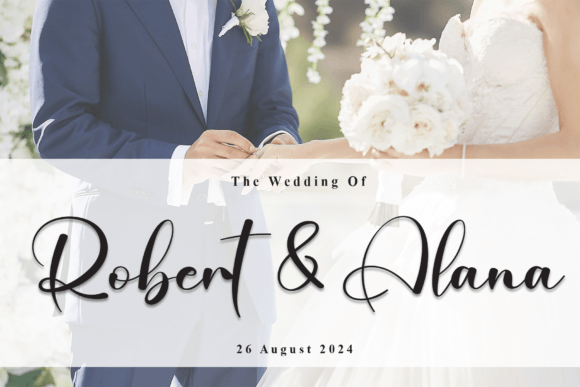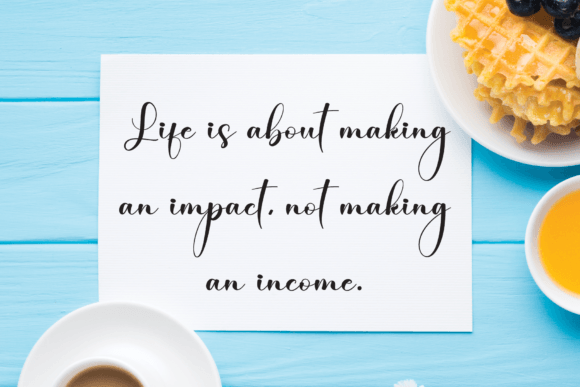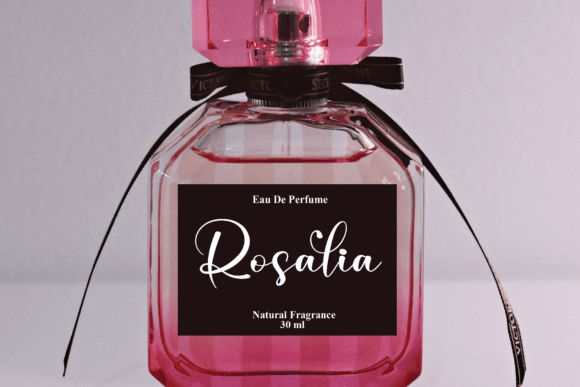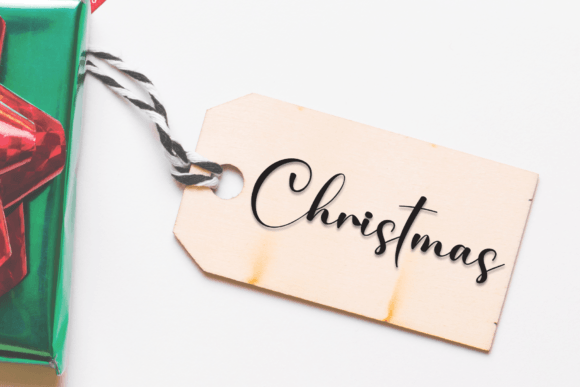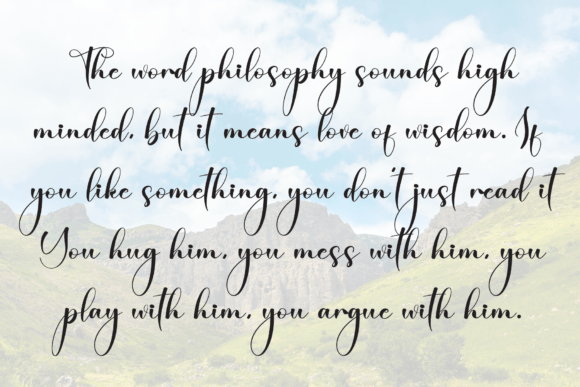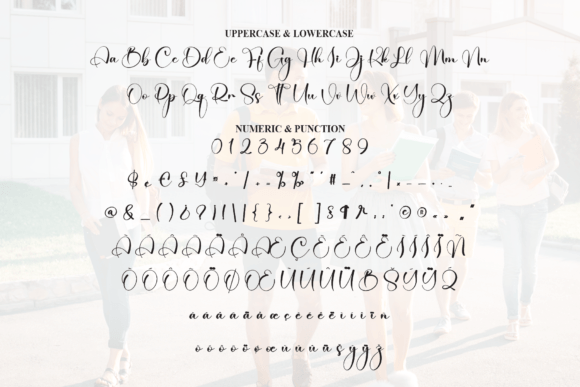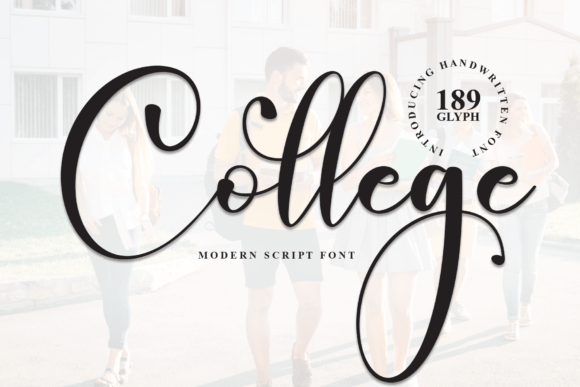
Introducing College Font: The Ultimate Casual and Friendly Handwritten Font
Are you tired of using traditional fonts that lack personality? Look no further than College Font, a fun and playful handwritten font that’s perfect for adding a personal touch to your designs. Whether you’re a student, designer, or crafter, this font is sure to bring a smile to your face and make your projects stand out.
What Makes College Font So Special?
College Font is a casual and friendly font that’s designed to look like it was written with a pen or pencil. The letters are playful, easy to read, and have a relaxed, laid-back vibe that’s perfect for notes, invitations, and creative projects. This font is ideal for anyone who wants to add a touch of whimsy and personality to their designs.
Perfect for Notes and Invitations
College Font is perfect for creating notes, invitations, and other personal correspondence. The font’s casual and friendly feel makes it ideal for writing letters, postcards, and other handwritten-style messages. Whether you’re inviting friends to a party or sending a note to a loved one, College Font is sure to make your message stand out.
Great for Creative Projects
College Font is also perfect for creative projects, such as scrapbooking, journaling, and crafting. The font’s playful and easy-to-read letters make it ideal for adding text to photos, illustrations, and other visual elements. Whether you’re creating a handmade card, a photo album, or a decorative journal page, College Font is sure to add a personal touch to your project.
Easy to Use and Versatile
Why Designers and Crafters Love College Font
Designers and crafters love College Font for its unique and playful style. The font’s casual and friendly feel makes it perfect for creating designs that are approachable and relatable. Here are just a few reasons why designers and crafters love College Font:
- Unique and Playful Style: College Font has a unique and playful style that’s sure to make your designs stand out.
- Easily Readable: The font’s letters are easy to read, making it perfect for designs that require a lot of text.
- Versatile: College Font is versatile and can be used for a wide range of design applications.
Tips for Using College Font
Here are a few tips for using College Font in your designs:
- Use it for Headings and Titles: College Font is perfect for headings and titles, adding a playful and personal touch to your designs.
- Mix it with Other Fonts: College Font can be paired with other fonts to create a unique and interesting design.
- Experiment with Colors: The font’s playful style makes it perfect for experimenting with different colors and color combinations.
College Font is a fun and playful handwritten font that’s perfect for adding a personal touch to your designs. Whether you’re a student, designer, or crafter, this font is sure to bring a smile to your face and make your projects stand out. With its casual and friendly feel, easy-to-read letters, and versatility, College Font is the perfect choice for notes, invitations, and creative projects.